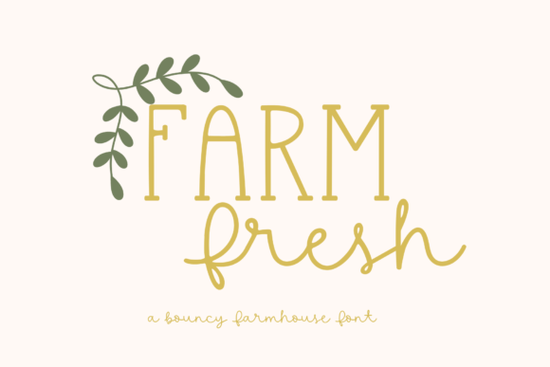
If you're searching for a Farm Fresh Font that works beautifully with Cricut machines and handmade design projects, this farmhouse-style script typeface is worth a closer look. It has the kind of warm, hand-lettered feel that makes invitations, greeting cards, and personalized crafts look genuinely special without spending hours on calligraphy.
What Makes the Farm Fresh Font Stand Out Among Script Fonts?
There are thousands of script fonts available online, so what makes this one different? The short answer: it strikes a balance between elegance and readability. Many decorative cursive fonts look gorgeous at large sizes but fall apart at smaller ones. The Farm Fresh Font keeps its smooth strokes and legible letterforms even when scaled down for subheadings or product labels.
The handwritten style feels organic and approachable like something you'd see on a chalkboard sign at a farmer's market. That makes it a natural fit for:
- Rustic wedding invitations and save-the-dates
- Greeting cards with a personal, handmade touch
- Print-on-demand products like mugs, tote bags, and t-shirts
- Social media graphics for small businesses and boutiques
- SVG cut files designed for Cricut and Silhouette machines
Does It Work Well With Cricut and Cutting Machines?
Yes and this is one of its strongest selling points. The font was designed with Cricut users in mind. The letter connections are clean, and the curves are smooth enough that your blade won't struggle with tricky cuts. If you've ever used a font that looked perfect on screen but produced jagged or messy cuts, you know how frustrating that can be.
When you pair this typeface with a brush-style alternative for variety, you can create entire design systems for your Cricut projects without worrying about compatibility issues.
Who Should Use a Farmhouse Script Font Like This?
This font isn't just for Cricut crafters. It works well for a surprisingly wide range of creative professionals and hobbyists:
- Print-on-demand sellers who need charming, readable typography for their product listings
- Small business owners creating branded materials like price tags, menus, or thank-you cards
- Graphic designers working on client projects with a rustic, farmhouse, or vintage aesthetic
- DIY enthusiasts who want professional-looking results without hiring a lettering artist
If you also work on elegant or formal projects, consider pairing it with something like the elegant wedding script to cover a broader range of styles in your font library.
How Does It Compare to Other Handwritten Fonts?
Every handwritten font has its own personality. The Farm Fresh Font leans into a warm, casual, and approachable vibe. If you need something bolder, a font like Fidelity Contrasts offers a different kind of visual impact with contrasting thick and thin strokes.
For projects that call for a more refined or educational tone, the Gorgeous Teacher typeface brings a polished handwritten look that works beautifully for stationery and classroom materials. Meanwhile, the Southmore script gives you another option with its own distinct character and flow.
Choosing the right font comes down to the mood you want to set. Farm Fresh is ideal when you want your design to feel friendly, down-to-earth, and inviting.